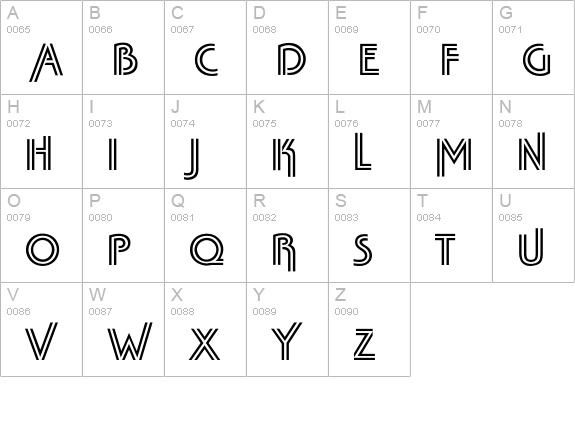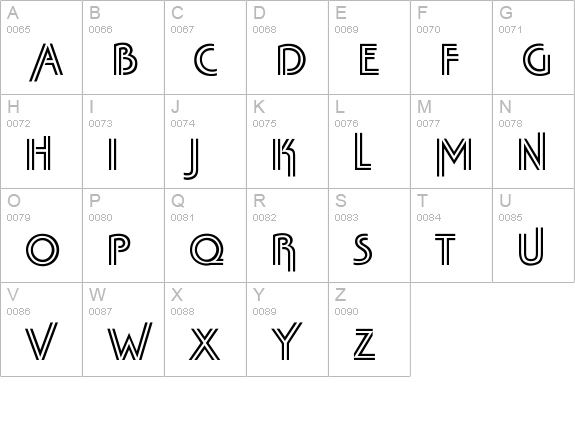
TabascoTwin Font Details
Introducing TabascoTwin font, a captivating and versatile typeface that is sure to spice up your design projects. With its bold and distinctive letterforms, TabascoTwin exudes a fiery energy that commands attention. This font is not only visually striking but also offers a seamless blend of elegance and excitement. Its unique combination of sharp edges and smooth curves gives each character a dynamic and captivating appearance. Whether used for headlines, logos, or body text, TabascoTwin adds a touch of vibrancy and personality to any composition. What sets TabascoTwin apart is its incredible versatility. It effortlessly adapts to various design styles and contexts, making it a go-to choice for both digital and print projects. From sleek and modern designs to vintage and retro aesthetics, this font effortlessly transforms your ideas into stunning visual realities. One of the most remarkable aspects of TabascoTwin font is that it is freely available to download at FontsMarket.com. This means that you can easily access and utilize this remarkable typeface without any constraints. Its unrestricted availability allows you to explore the font's creative potential and incorporate it into your personal or commercial projects without any limitations. So, if you are looking for a font that combines boldness, elegance, and versatility, TabascoTwin is the perfect choice for you. Download this remarkable typeface for free at FontsMarket.com and let your creativity ignite with its fiery charm.